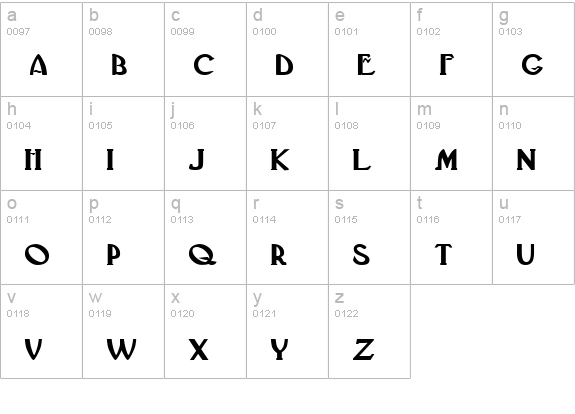
Deco-Extended Bold is a strong, high-contrast, extended-width variant in the Deco typeface family \xE2\x80\x94 well suited to headlines, attention-grabbing titles, and strong calls-to-action.
The Deco-Extended Bold font is a stunning display typeface that exudes a perfect blend of elegance and modernity. Its bold and striking appearance makes it ideal for grabbing attention and making a statement in any design project. With its unique Art Deco-inspired design, this font is sure to add a touch of sophistication and style to your creations. What makes the Deco-Extended Bold font even more appealing is that it is available for free download at FontsMarket.com. This means that you can easily access and use this beautiful font in your personal and commercial projects without any cost. Whether you are designing posters, flyers, logos, or any other graphic materials, the Deco-Extended Bold font will surely elevate the visual appeal of your work. Don't miss out on this amazing opportunity to enhance your designs with this exquisite typeface!